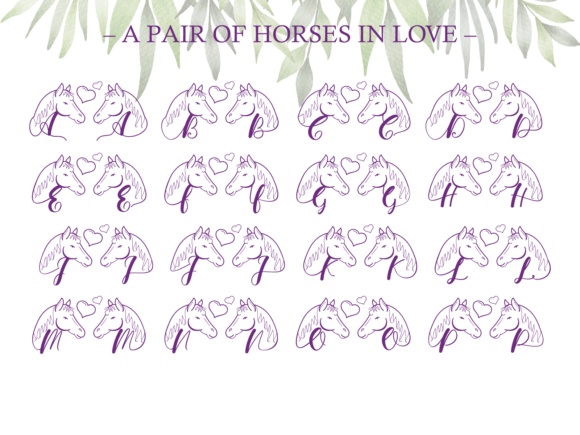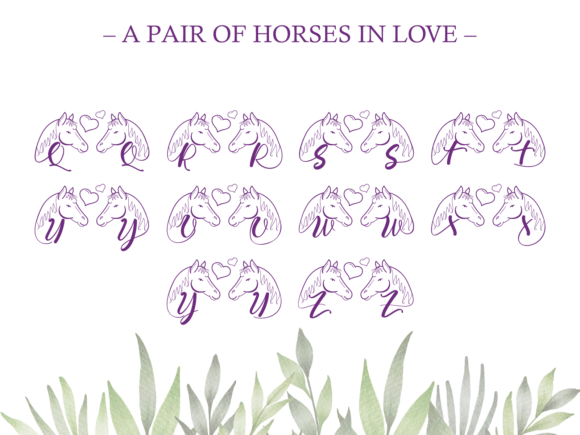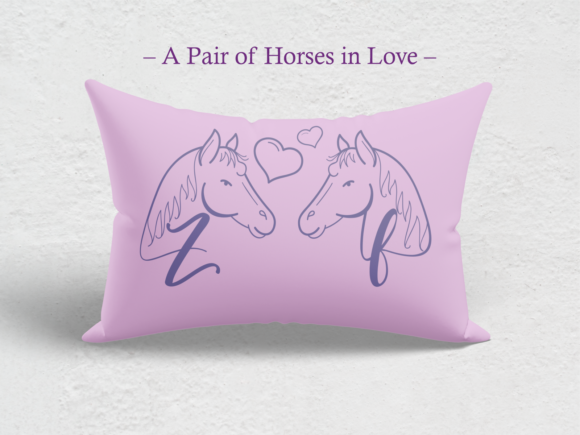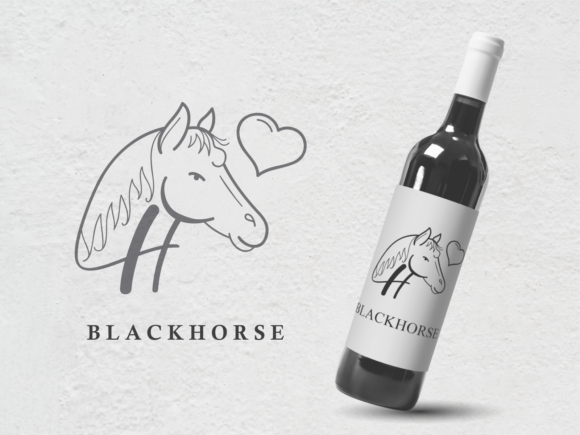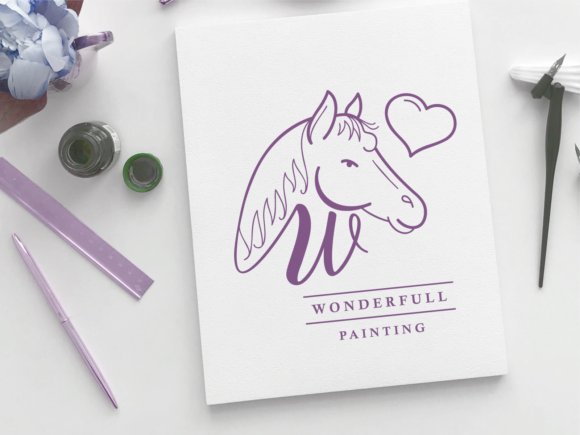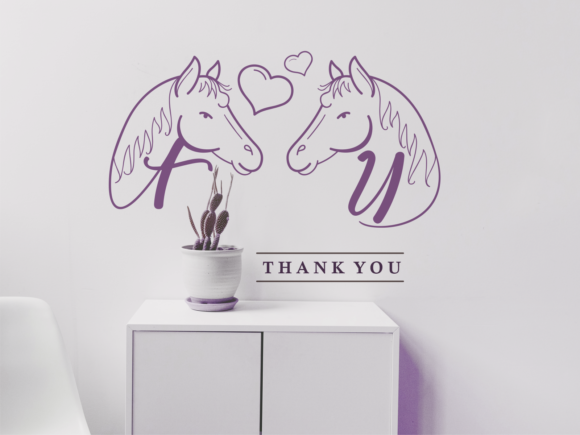
Where Love and Design Meet
As a designer, there’s nothing quite like that moment when a project comes together, and you see the perfect combination of style and emotion. It’s the spark that ignites your creativity, and you know you’ve created something truly special. For me, that moment came when I discovered – a beautiful, one-of-a-kind decorative font that captures the essence of love and whimsy.
This enchanting font features a horse head and a heart as ornaments, making it the perfect choice for designers looking to add a touch of romance and elegance to their work. Whether you’re creating wedding invitations, stationery art, or social media posts, is sure to capture the hearts of your audience. Its versatility and unique style make it a valuable addition to any designer’s toolkit.
- Unique Characteristics: The font features a whimsical, hand-drawn design with intricate details, making it perfect for romantic and whimsical designs, such as wedding invitations, greeting cards, and children’s books.
A Pair of Horses in Love Font Review
A Pair of Horses in Love Font is a charming, hand-drawn font that exudes warmth and personality. ✨ The flowing lines and playful character design make it perfect for creating whimsical and romantic designs. I particularly love how the font captures the essence of a tender moment between two horses. ✨ The font’s versatility also shines through in its various font styles, from bold to cursive, catering to different design needs.
However, there are some limitations to consider. ⚠️ The font might be too cursive for some designers, as it can be difficult to read in certain contexts. Additionally, the font’s character set is limited, which may restrict its use in longer texts or for certain types of content.
Here are some key features of A Pair of Horses in Love Font:
- Charming, hand-drawn design
- Playful character design
- Versatile font styles (bold, cursive)
- Limited character set
Overall, A Pair of Horses in Love Font is a lovely addition to any designer’s toolkit. While it may have its limitations, it’s perfect for creating romantic and whimsical designs that need a touch of personality. With its unique charm and versatility, it’s definitely worth considering for your next design project.
The “A Pair of Horses in Love Font” is ideal for romantic and whimsical designs, such as:
- Wedding invitations and decorations
- Valentine’s Day and anniversary cards
- Equine-themed designs and logos
- Romantic social media graphics and posters